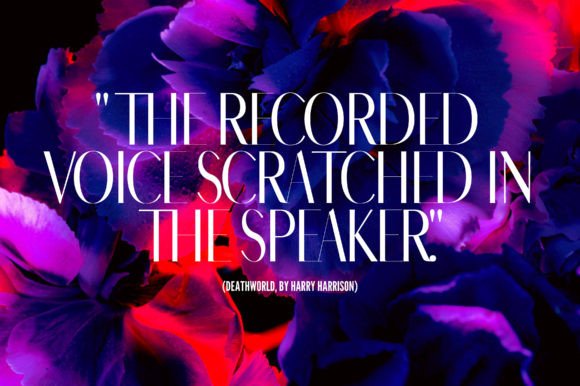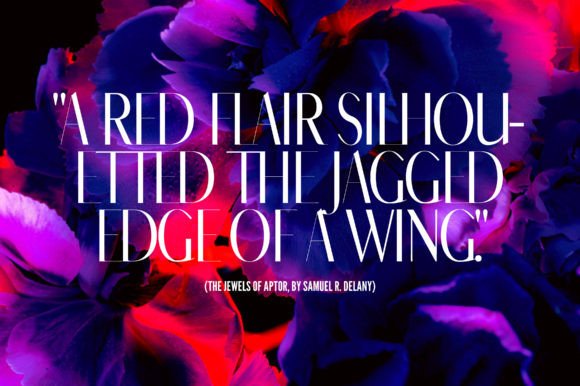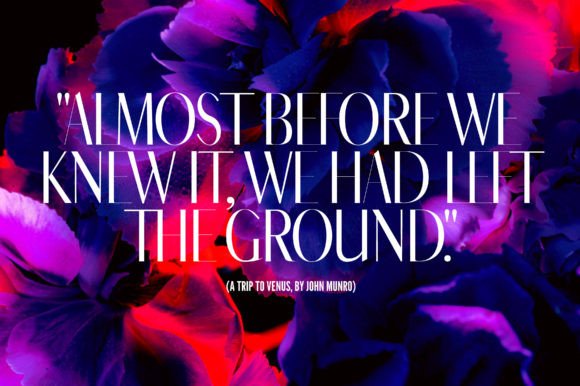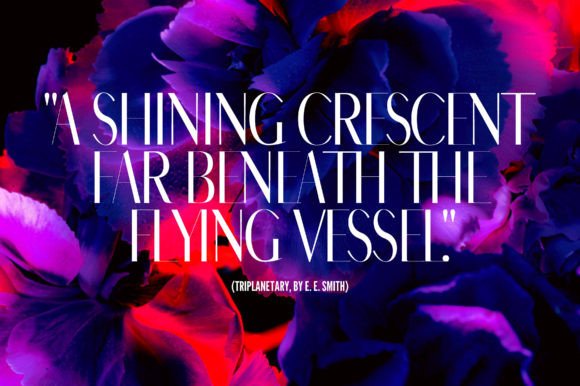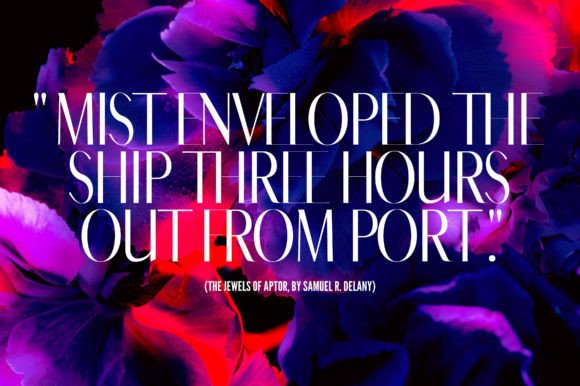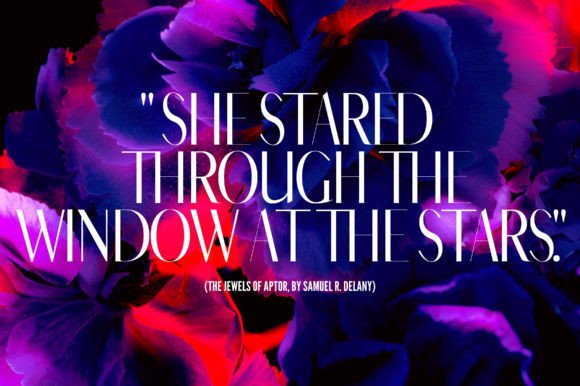
Introducing Couture Font: Elevate Your Brand with Sophistication and Professionalism
In the world of typography, a well-designed font can make all the difference in establishing a brand’s identity and conveying its message effectively. For businesses looking to elevate their brand and increase conversions, Couture Font is the perfect choice. This clean and minimalistic font exudes professionalism and sophistication, making it an ideal asset for any company looking to make a lasting impression.
The Power of Clean Lines and Minimalistic Design
Couture Font boasts clean lines and a minimalistic design that instantly conveys a sense of elegance and refinement. Its simplicity makes it highly versatile, allowing it to be used across a variety of mediums, from website headlines to business cards, and even social media graphics. This versatility is a significant advantage for businesses, as it enables them to maintain consistency in their branding across different platforms.
Professionalism and Sophistication at Its Finest
The professional and sophisticated look of Couture Font is unmatched. Its neutral design ensures that it complements any brand’s message, without overpowering it. This font is perfect for businesses that want to convey a sense of luxury, high-end quality, or expertise. Whether you’re a fashion brand, a tech startup, or a consulting firm, Couture Font is sure to elevate your brand and make it stand out from the competition.
Easy to Read and Versatile
One of the key benefits of Couture Font is its ease of readability. Its clean lines and simple design make it easy on the eyes, ensuring that your message is conveyed clearly and effectively. Additionally, its neutral look makes it suitable for any kind of brand, from bold and edgy to soft and feminine. This versatility is a significant advantage for designers and crafters, as it allows them to experiment with different styles and creative directions.
Why Choose Couture Font?
So, why should you choose Couture Font for your business? Here are just a few compelling reasons:
- Professionalism and sophistication: Couture Font exudes elegance and refinement, making it perfect for businesses that want to convey a sense of luxury or high-end quality.
- Versatility: This font can be used across a variety of mediums, from website headlines to business cards, and even social media graphics.
- Easy to read: Couture Font is easy on the eyes, ensuring that your message is conveyed clearly and effectively.
- Neutral look: This font’s neutral design makes it suitable for any kind of brand, from bold and edgy to soft and feminine.
How to Use Couture Font Effectively
To get the most out of Couture Font, here are a few tips for using it effectively:
- Use it consistently: Use Couture Font across all your marketing materials, including your website, social media graphics, and business cards, to maintain consistency in your branding.
- Experiment with different styles: Don’t be afraid to experiment with different styles and creative directions to find the one that works best for your brand.
- Pair it with other fonts: Consider pairing Couture Font with other fonts to create a unique and visually appealing typography.
In conclusion, Couture Font is the perfect choice for any business looking to elevate its brand and increase conversions. With its clean lines, minimalistic design, and versatility, this font exudes professionalism and sophistication. Its ease of readability and neutral look make it suitable for any kind of brand, making it a valuable asset for any company. Whether you’re a designer, crafter, or business owner, Couture Font is sure to take your brand to the next level.